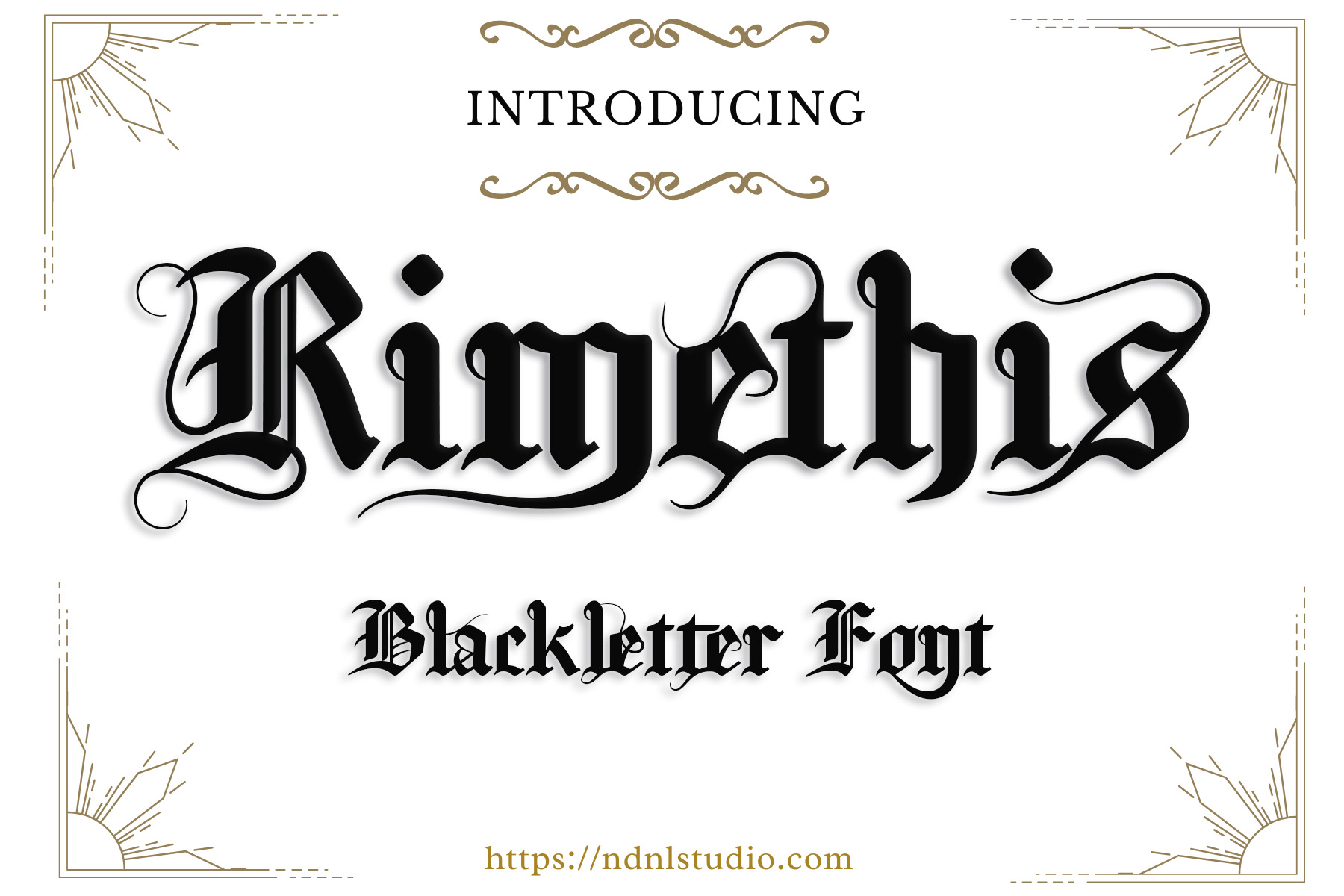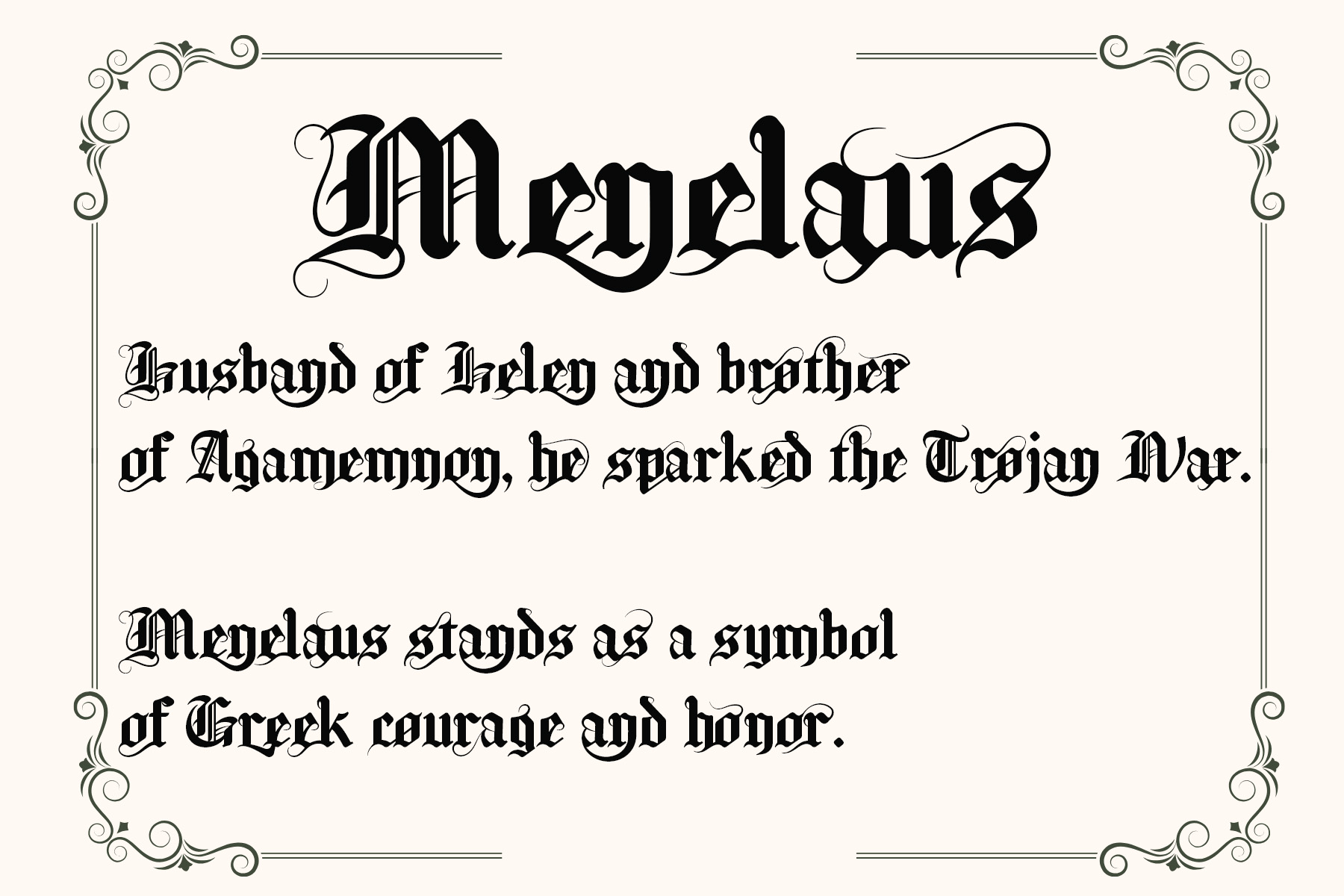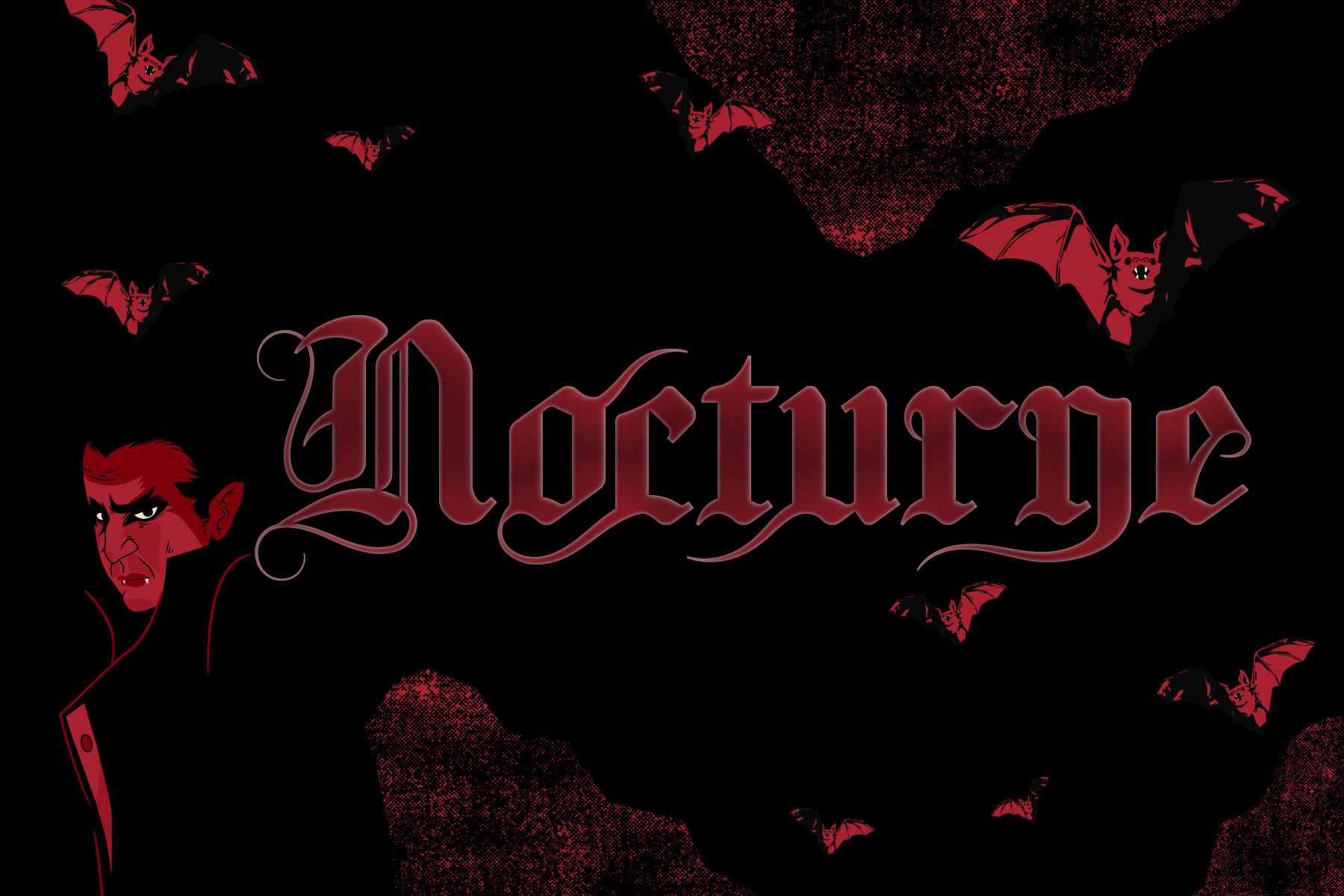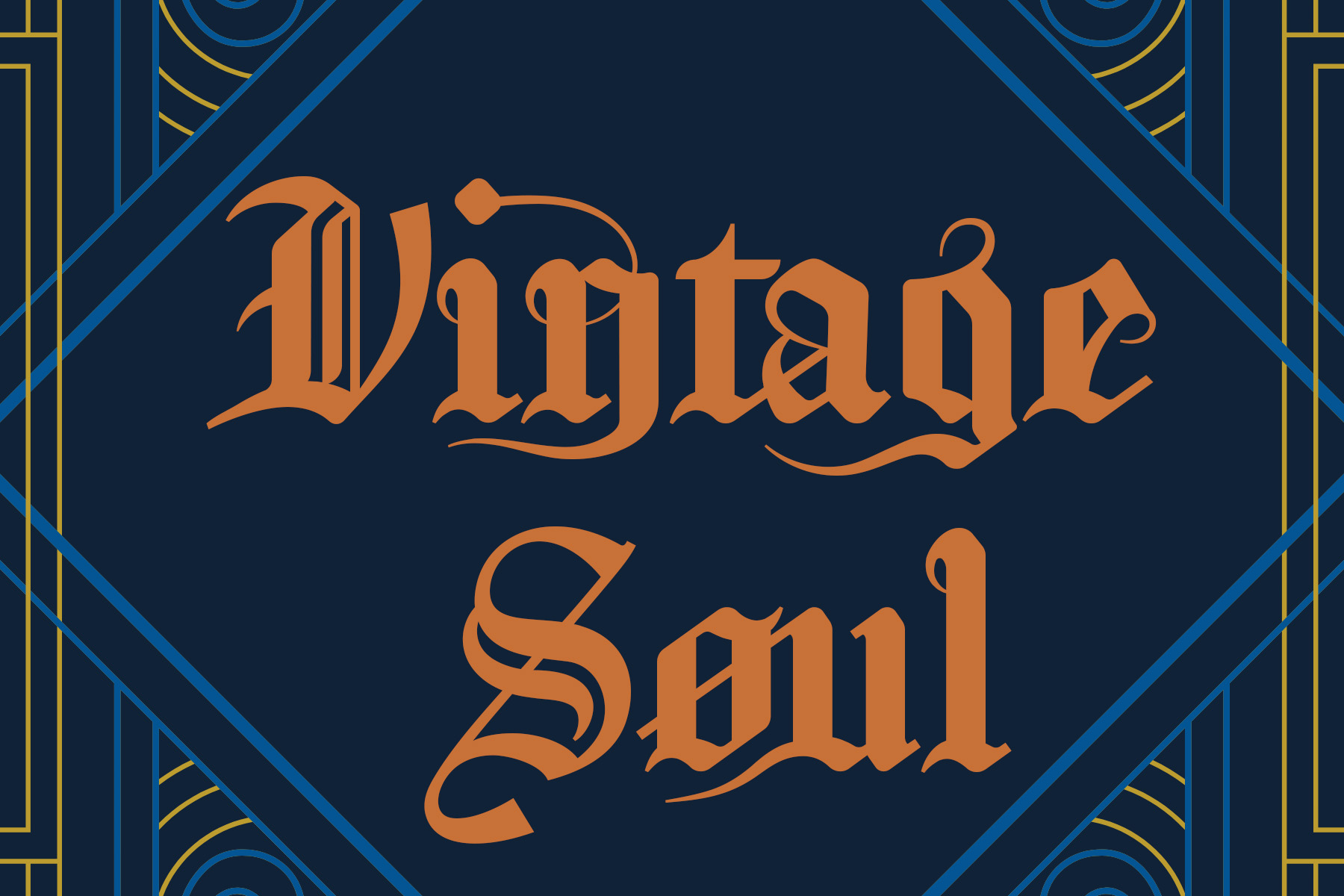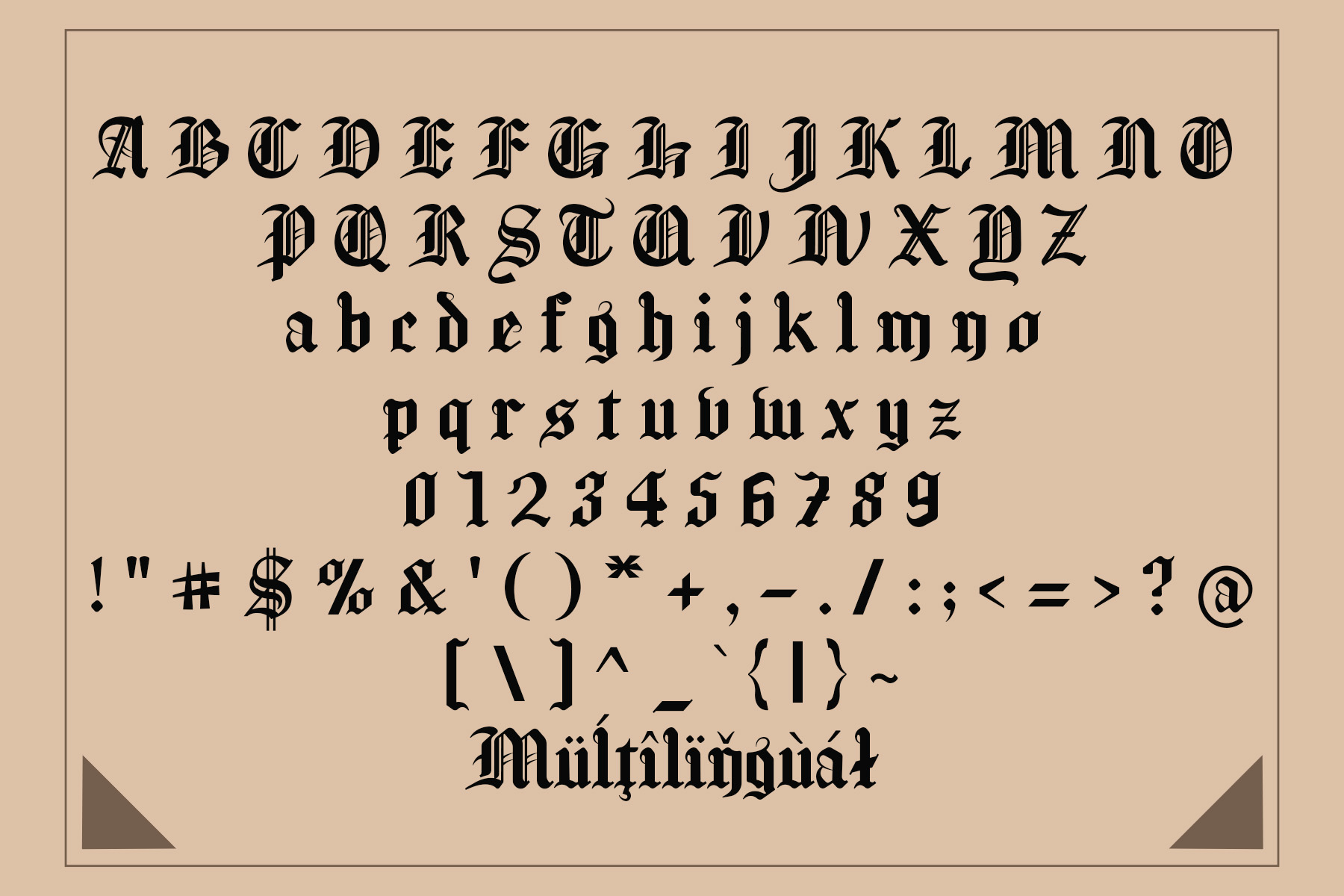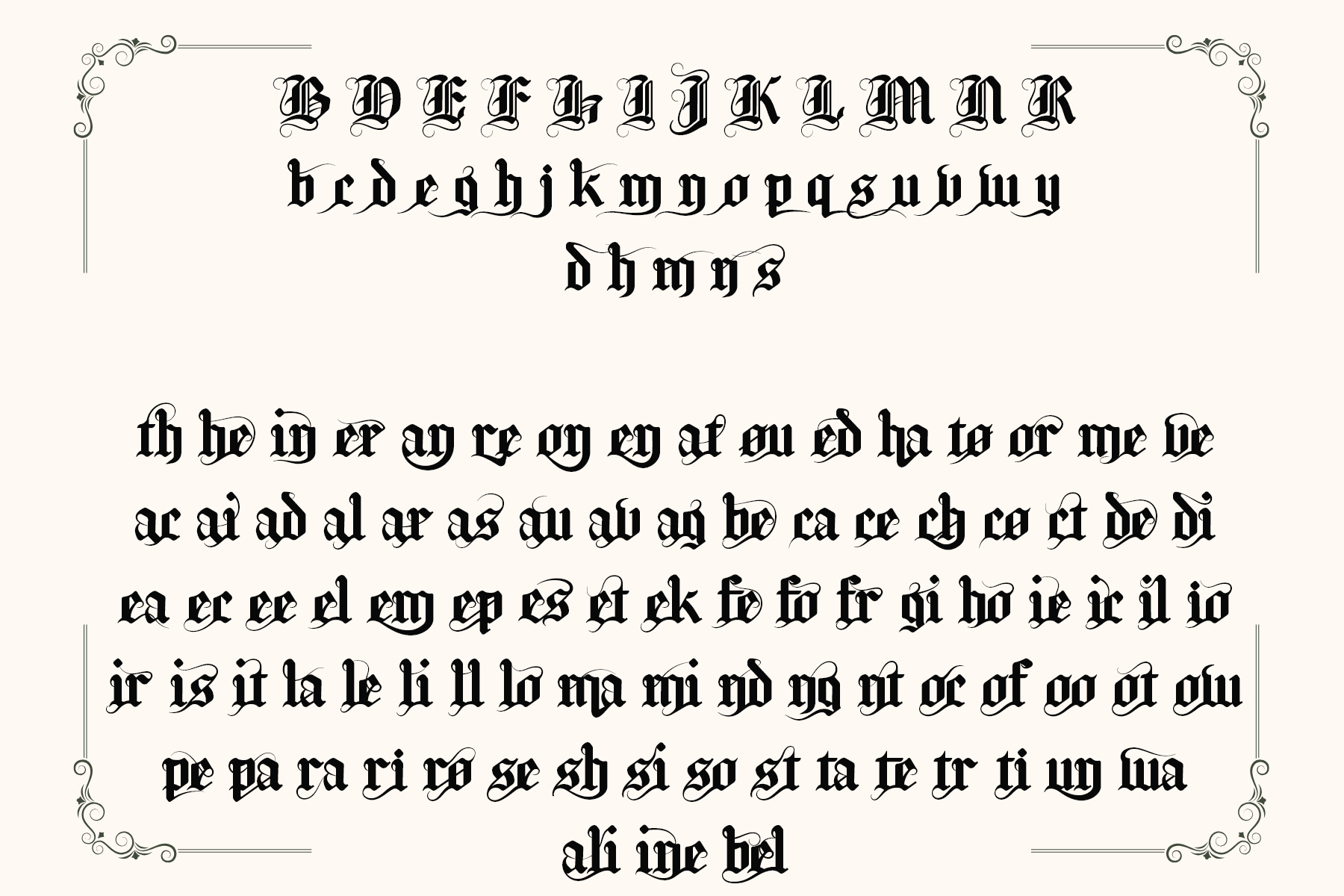
Introducing Rimethis!
Rimethis is a stunning Blackletter font that embodies the essence of gothic elegance and timeless craftsmanship. With its dramatic curves and sharp edges, it breathes life into an atmosphere of mystery and enchantment — perfect for Halloween, dark-themed branding, horror titles, tattoos, and vintage-style projects. Each letter carries the whisper of old legends and forgotten tales — making Rimethis not just a font, but a story written in ink and darkness.